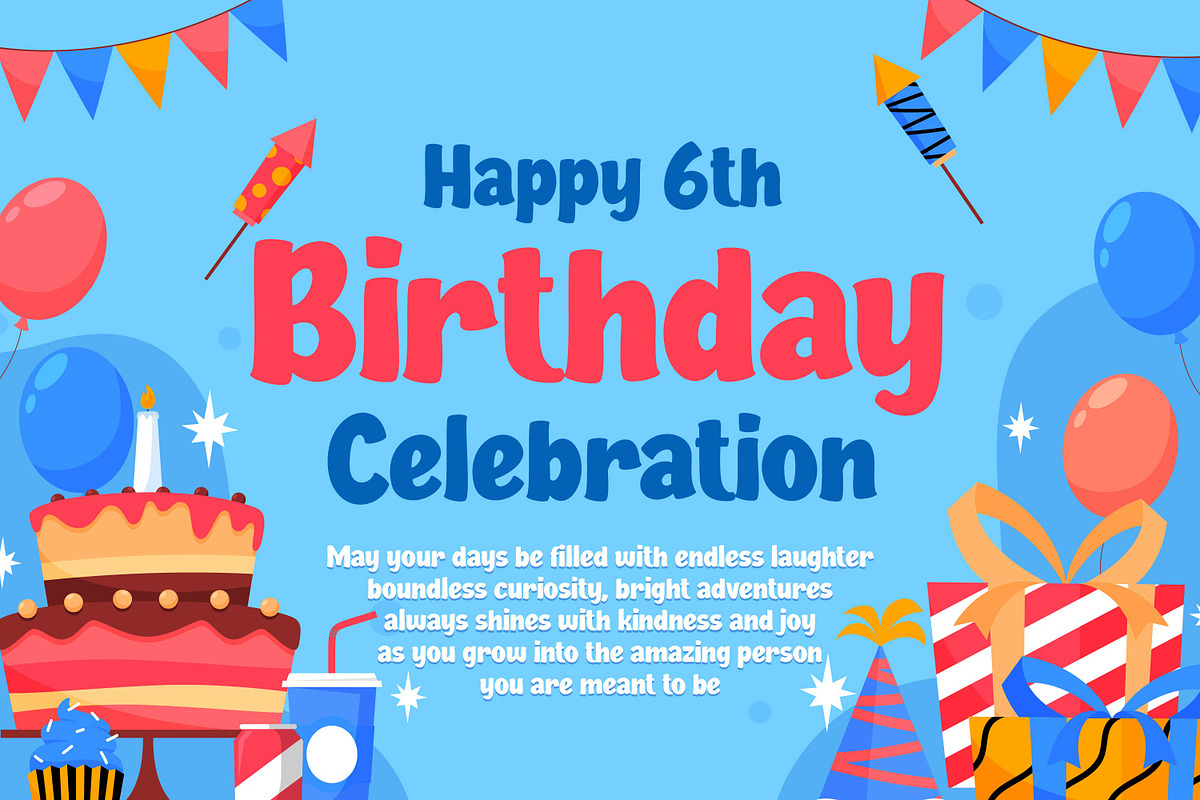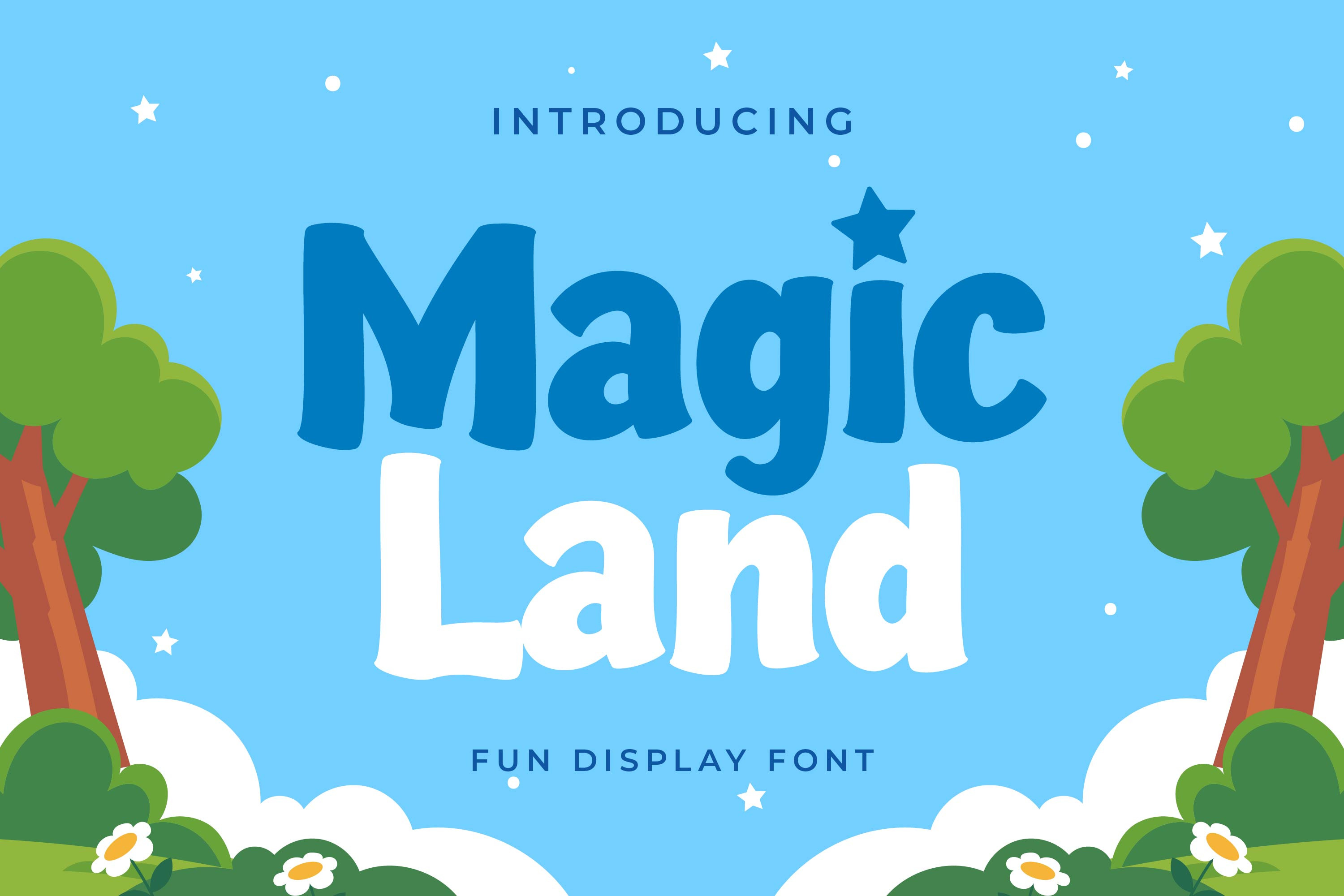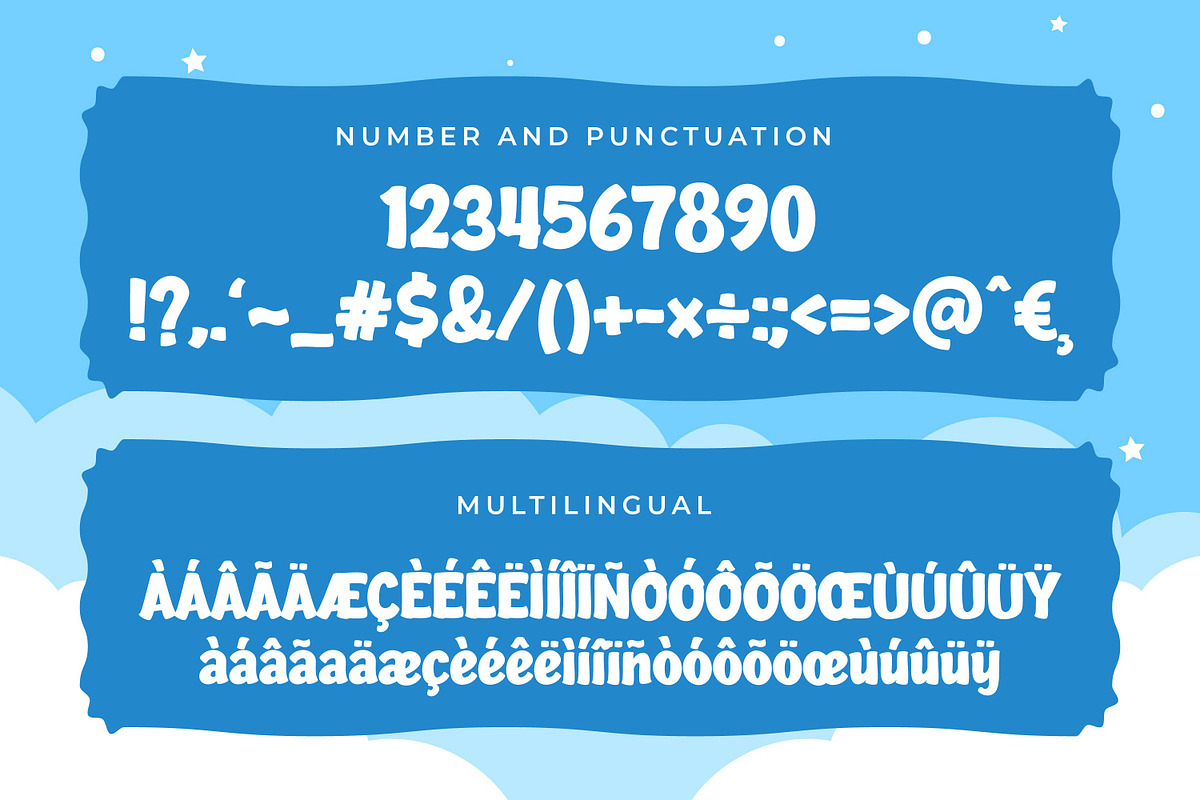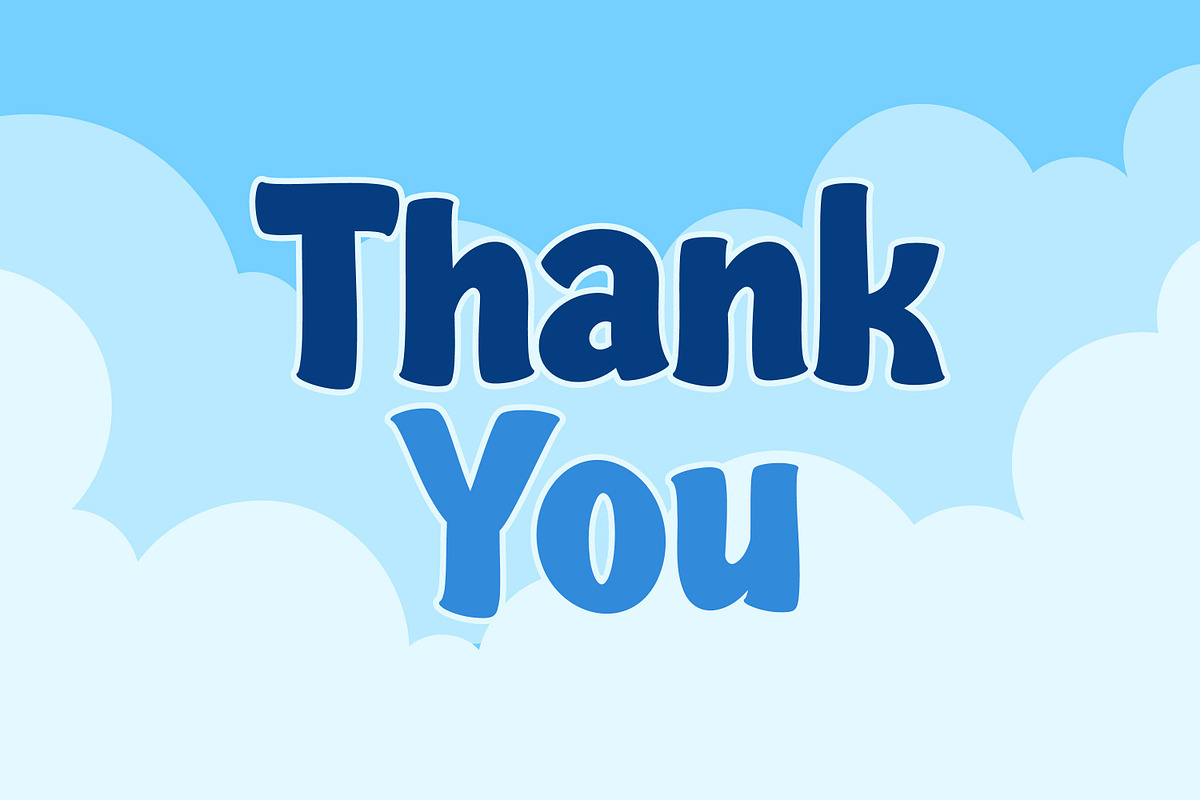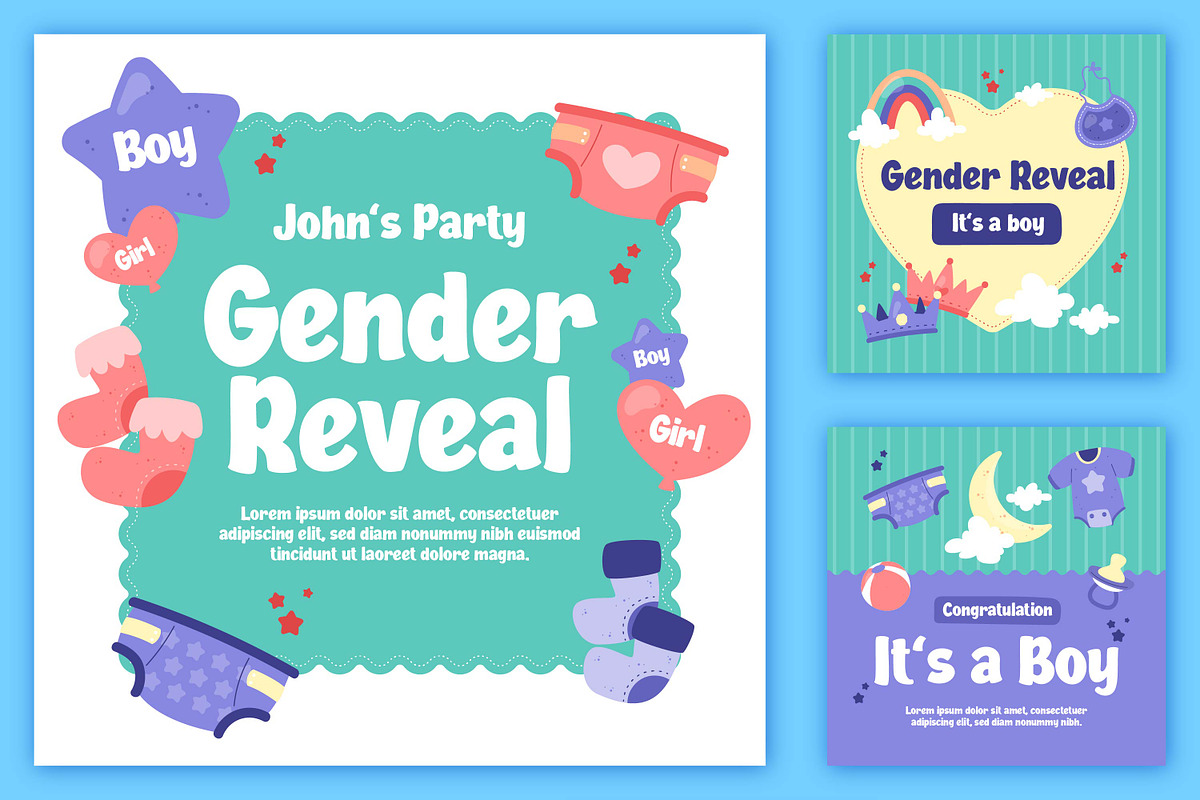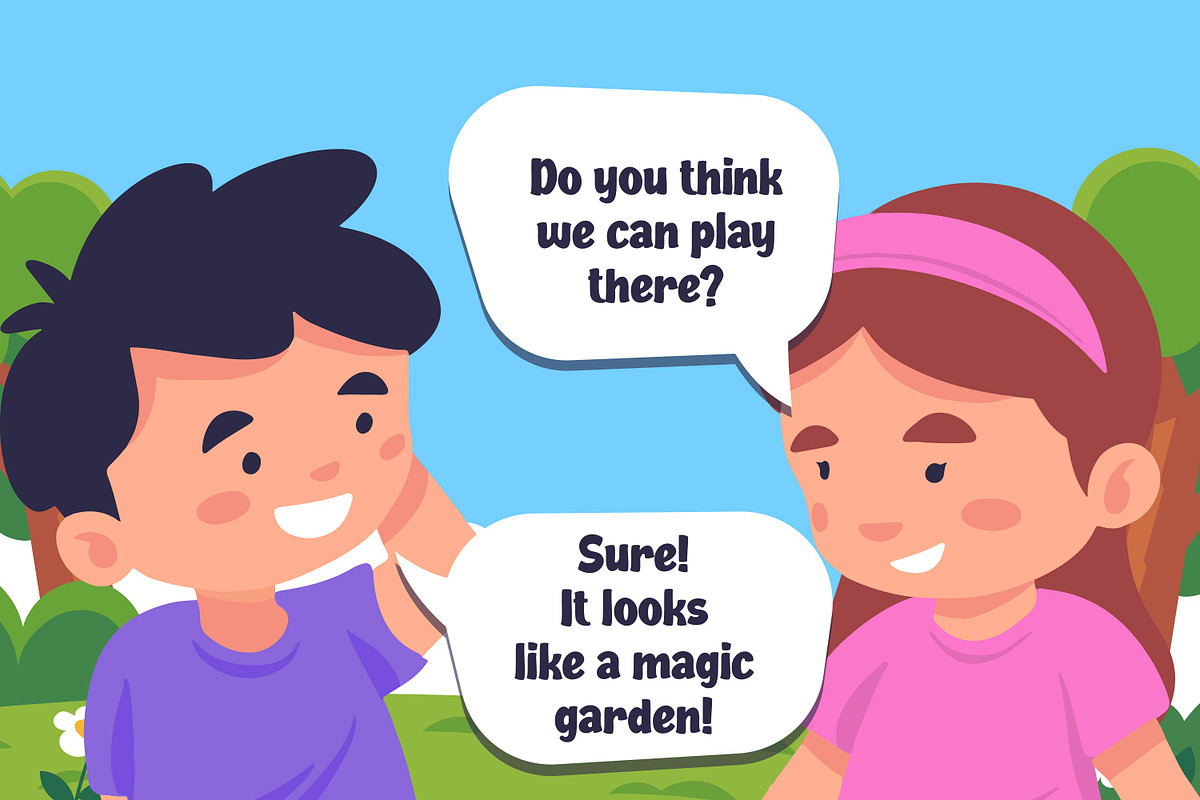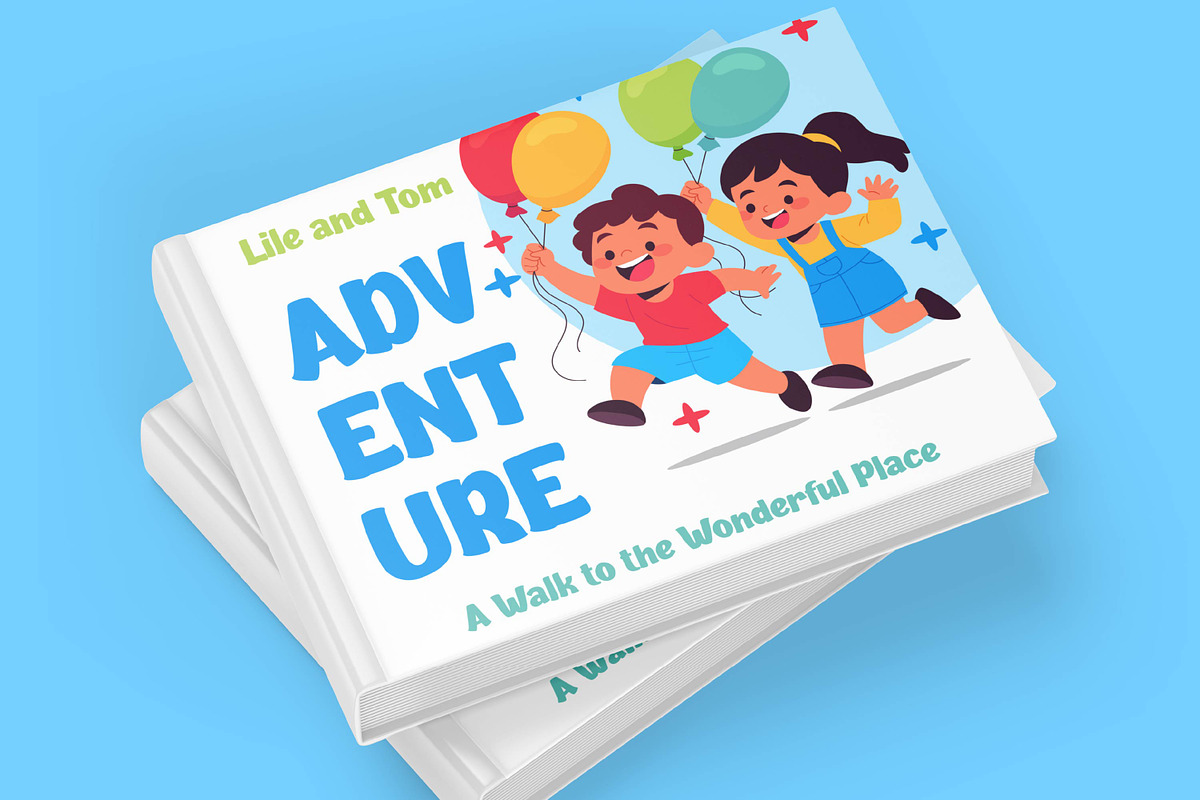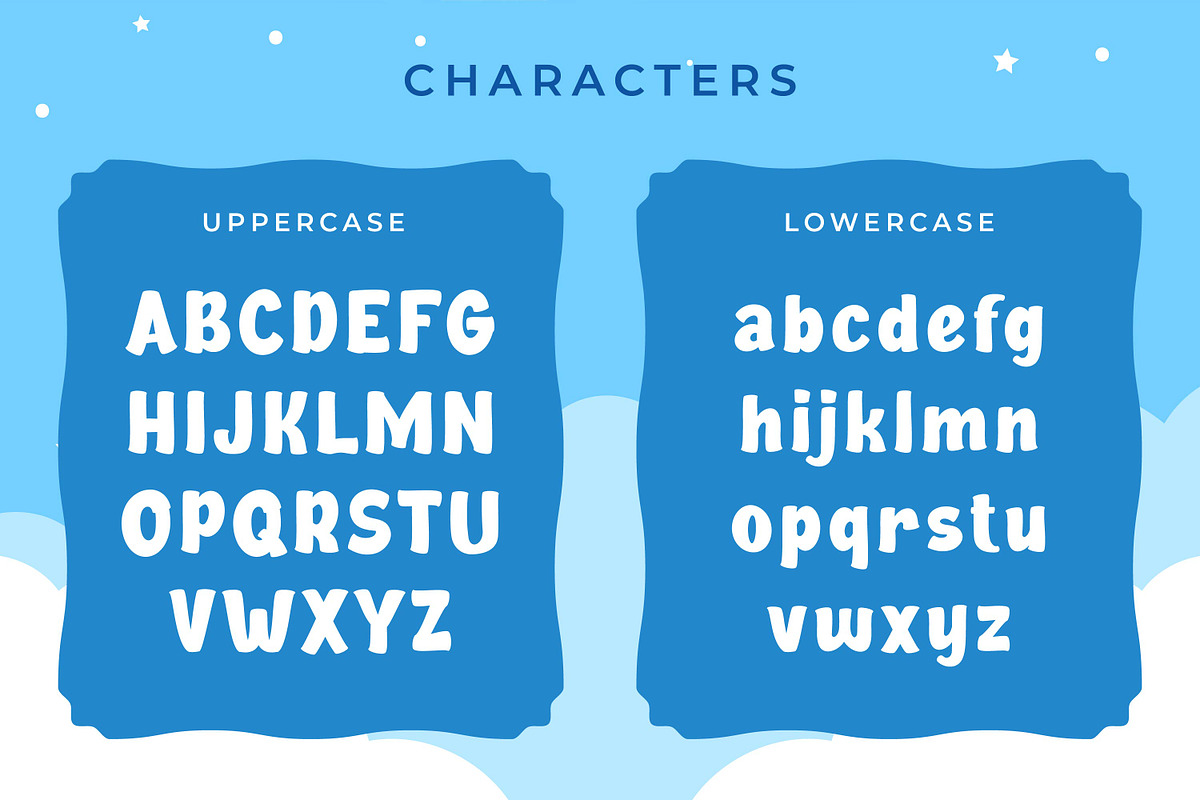
Magic Land - Fun Display Font
Magic Land is a whimsical and adventurous display font that feels straight out of a fairy tale. With its playful curves and magical charm, it’s ideal for fantasy titles, children’s books, game logos, or any project that needs a sprinkle of imagination and wonder.